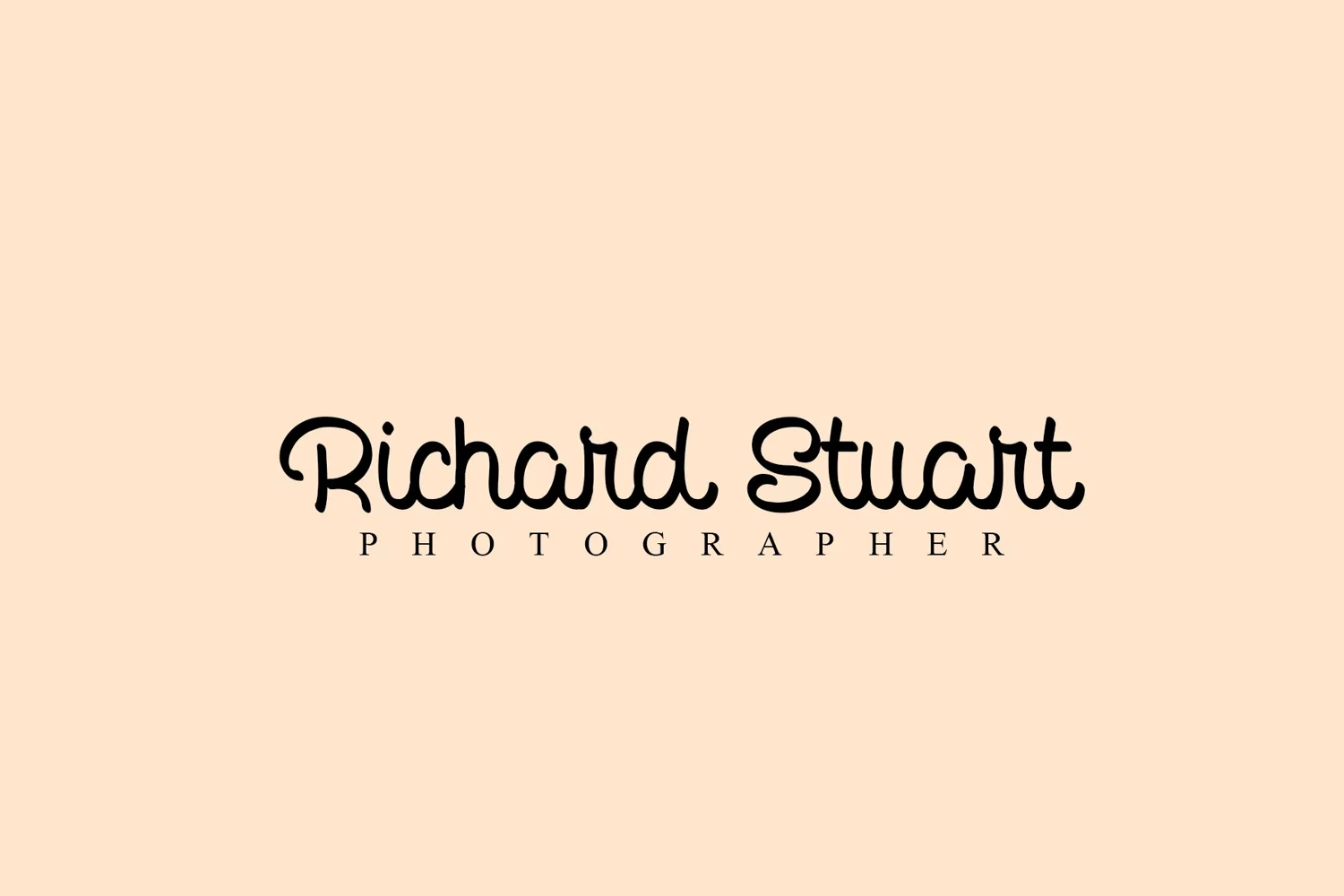
Quick Start is a modern handwritten font that is readable and stylish. It is defined by smooth curves and is perfect for fashion branding or editorial designs. Add it confidently to your projects, and you will love the results.
Multilingual Support